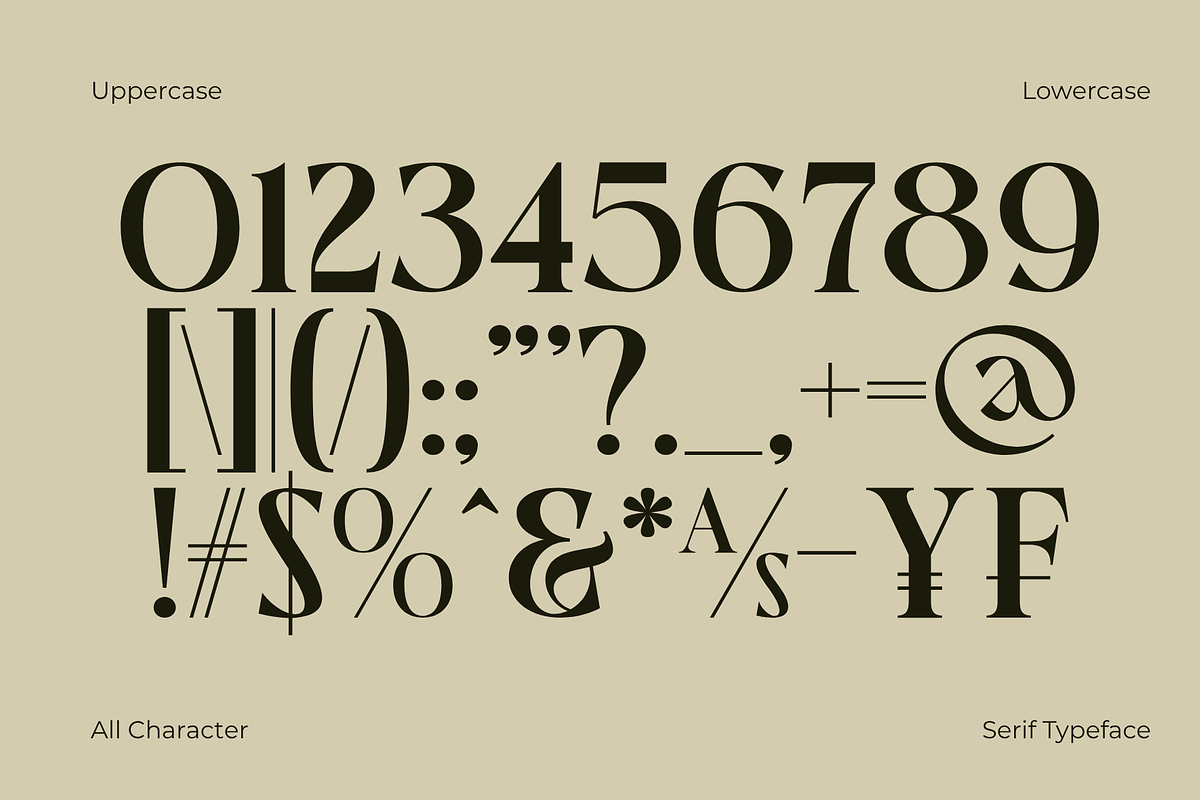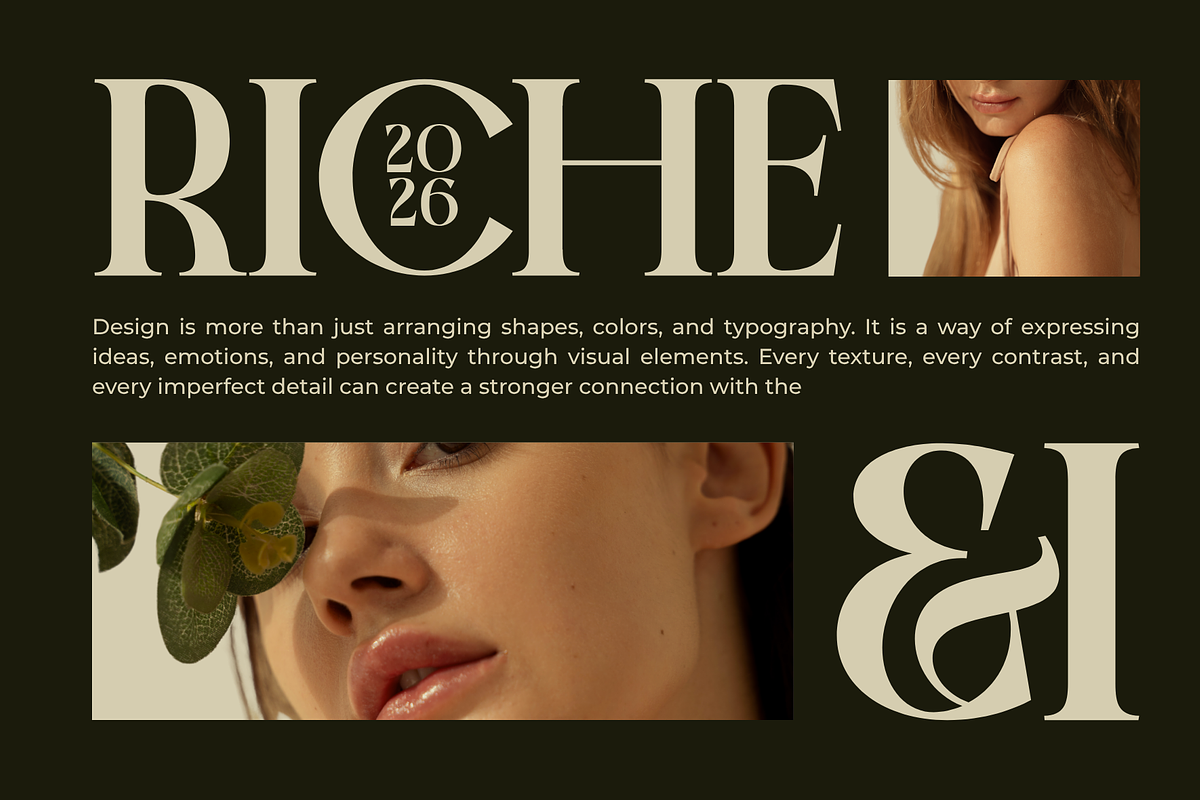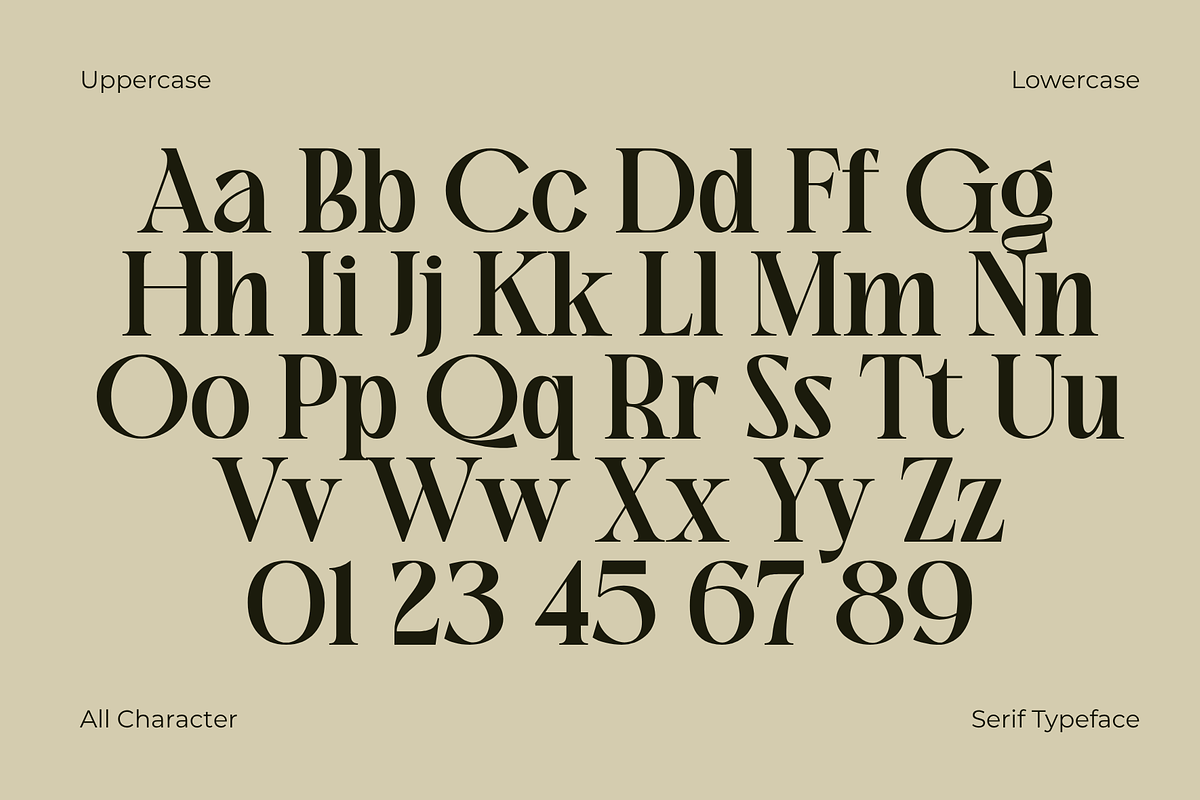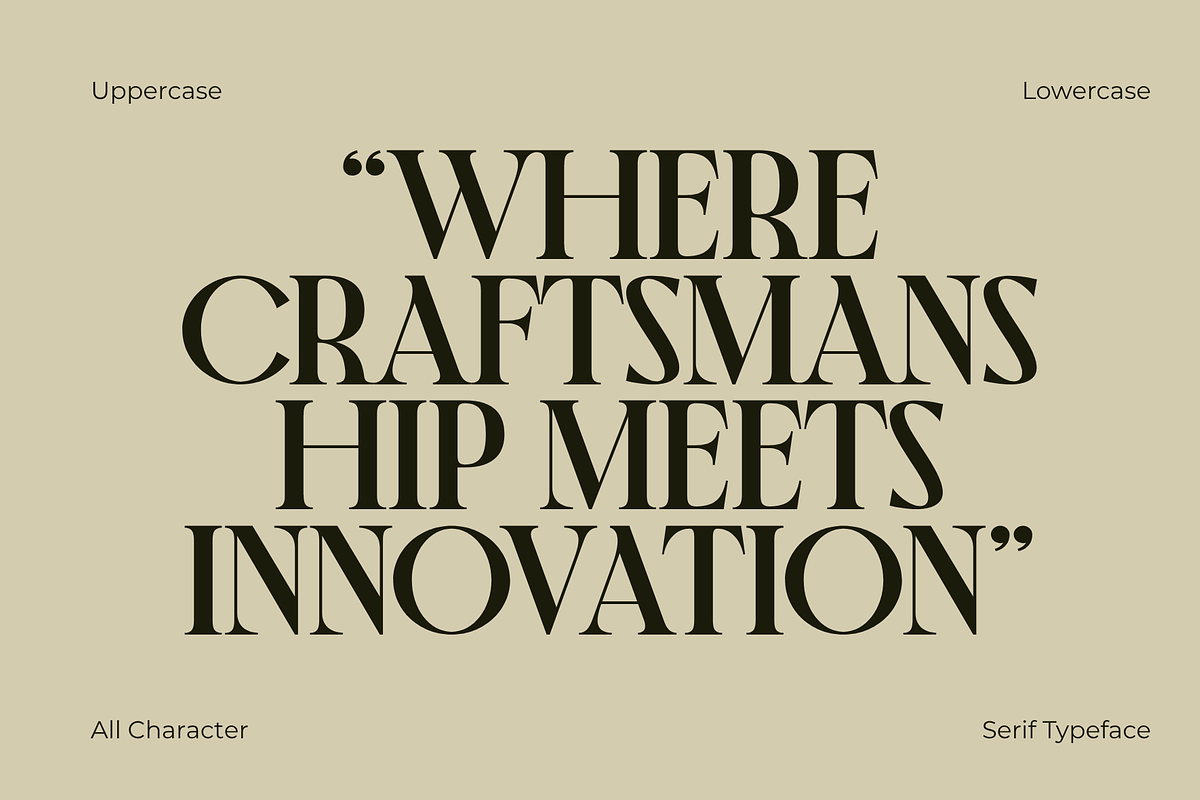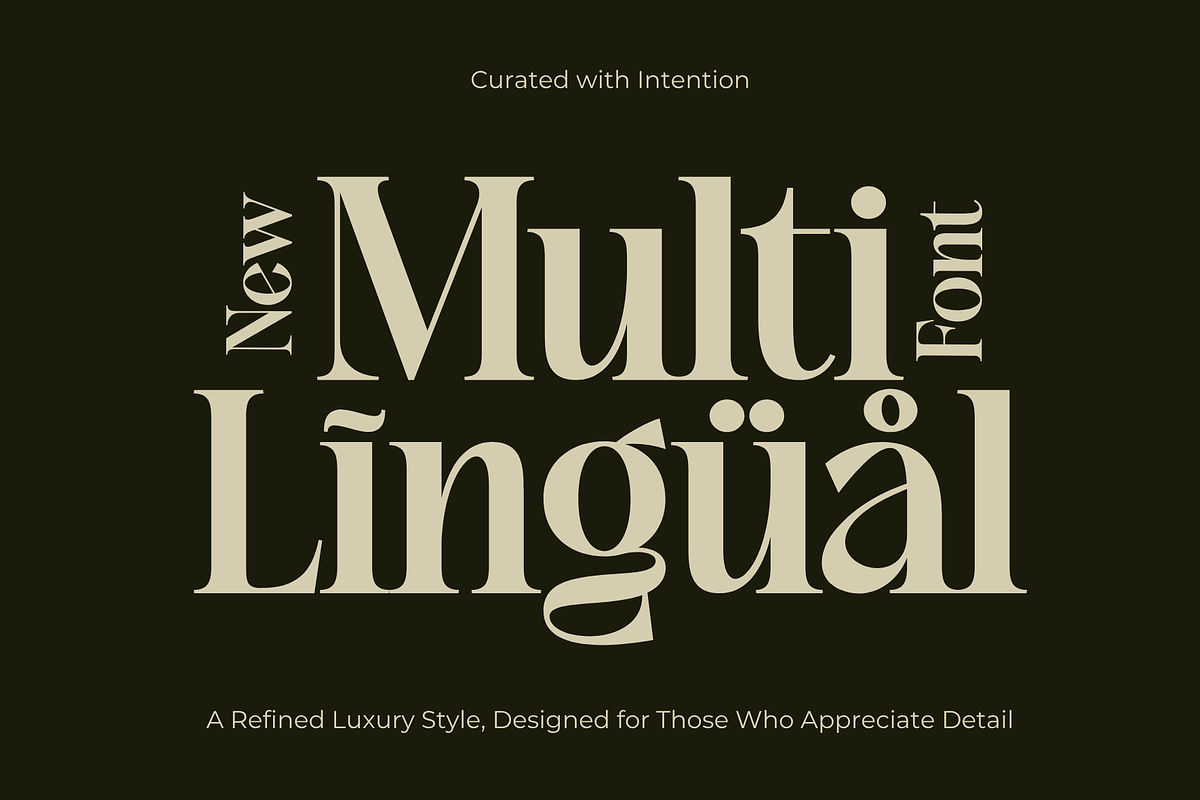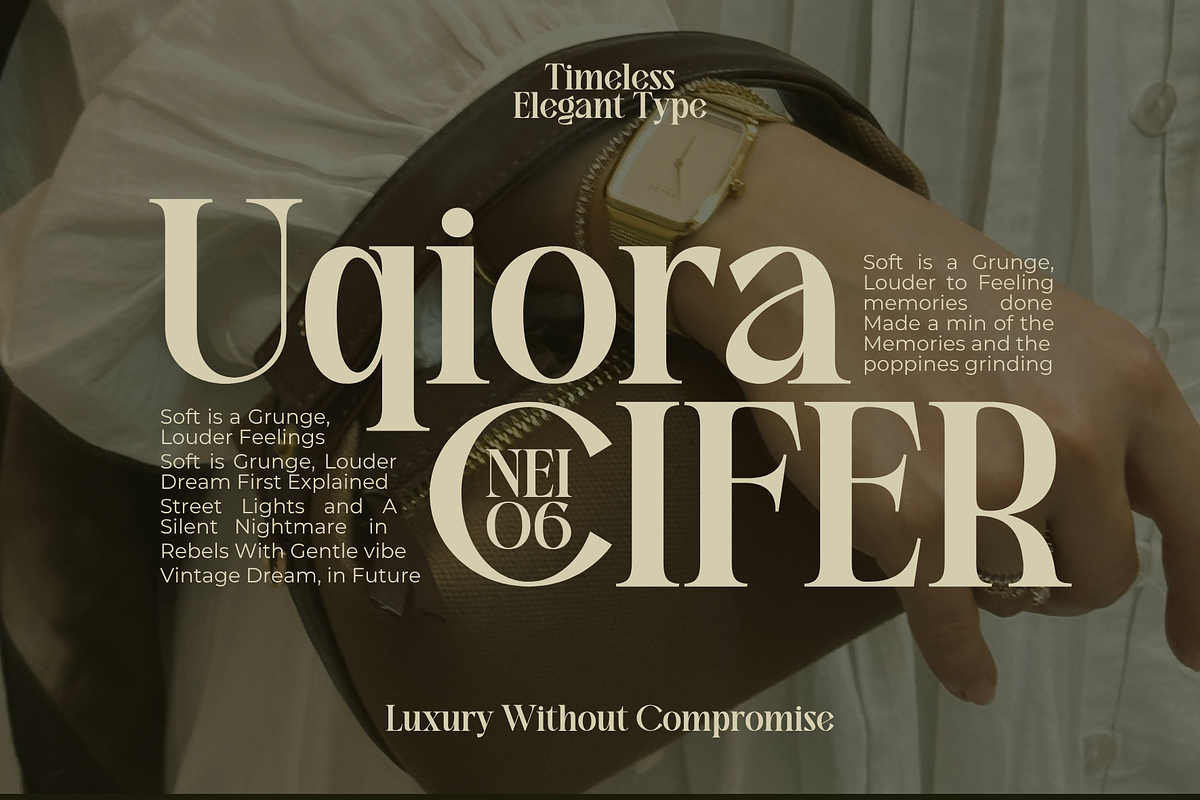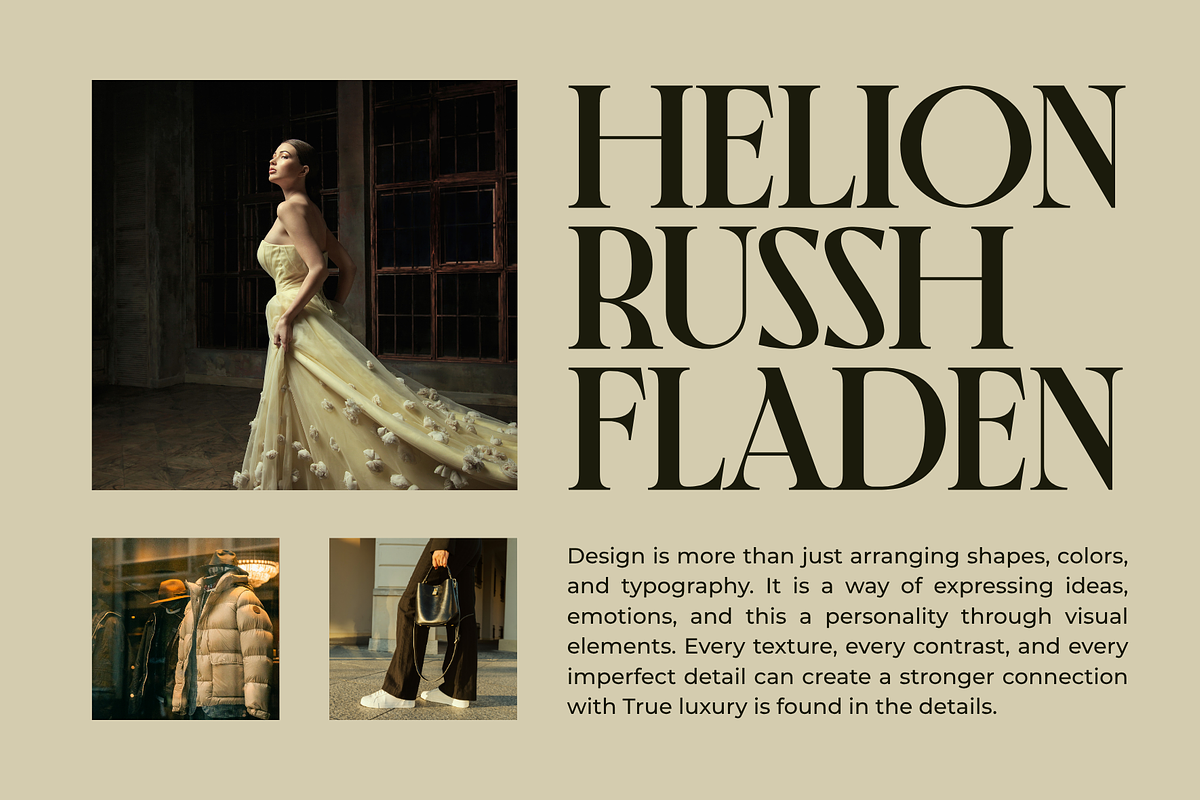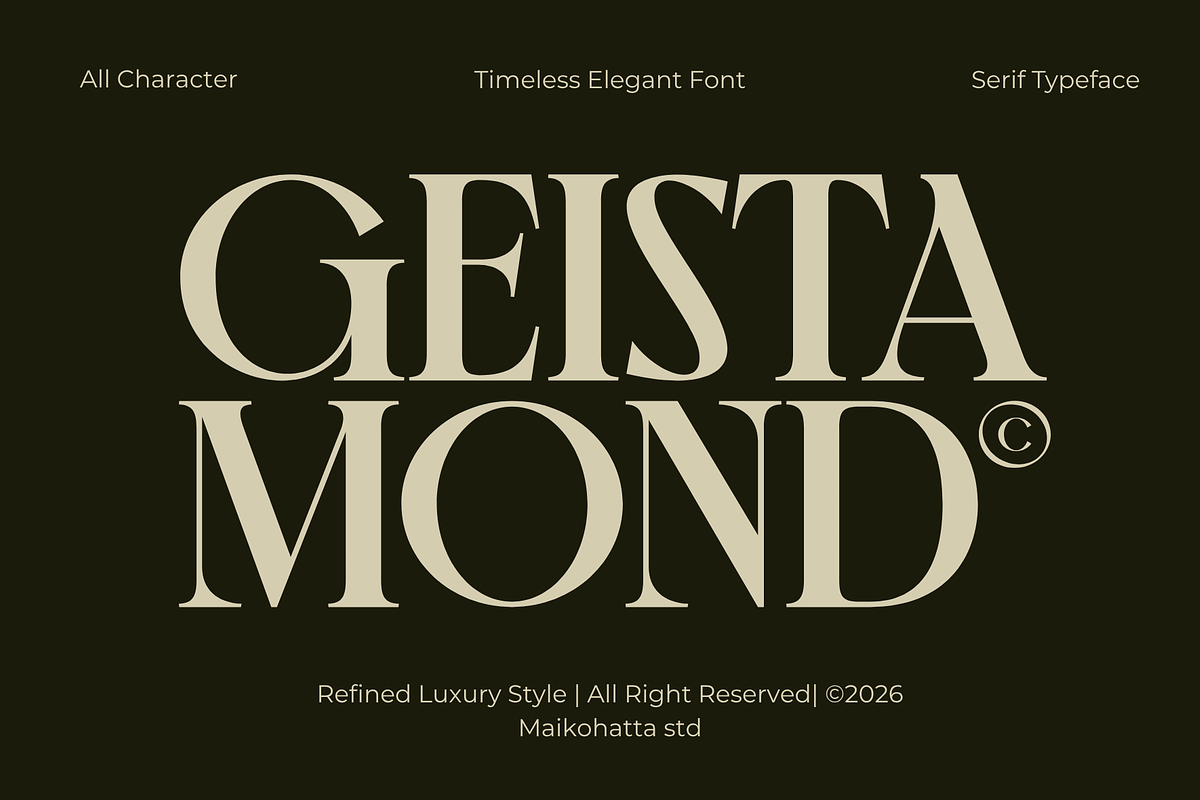
Geista Mond – Luxury Elegant Serif
Geista Mond is a timeless luxury serif font crafted with elegant curves, refined contrasts, and sophisticated letterforms. Inspired by high-end fashion editorials and modern branding aesthetics, this typeface brings a classy and graceful touch to every design project.
With its stylish serif details, Geista Mond is perfect for luxury branding, logo design, cosmetic packaging, fashion magazines, wedding invitations, jewelry brands, social media templates, and elegant advertising projects.
The font combines modern minimalism with classic beauty, creating a versatile typeface that feels both fashionable and professional. Every character is carefully designed to deliver a clean, luxurious, and highly readable visual experience.
* Uppercase
* Lowercase
* Multilingual
* Ligature